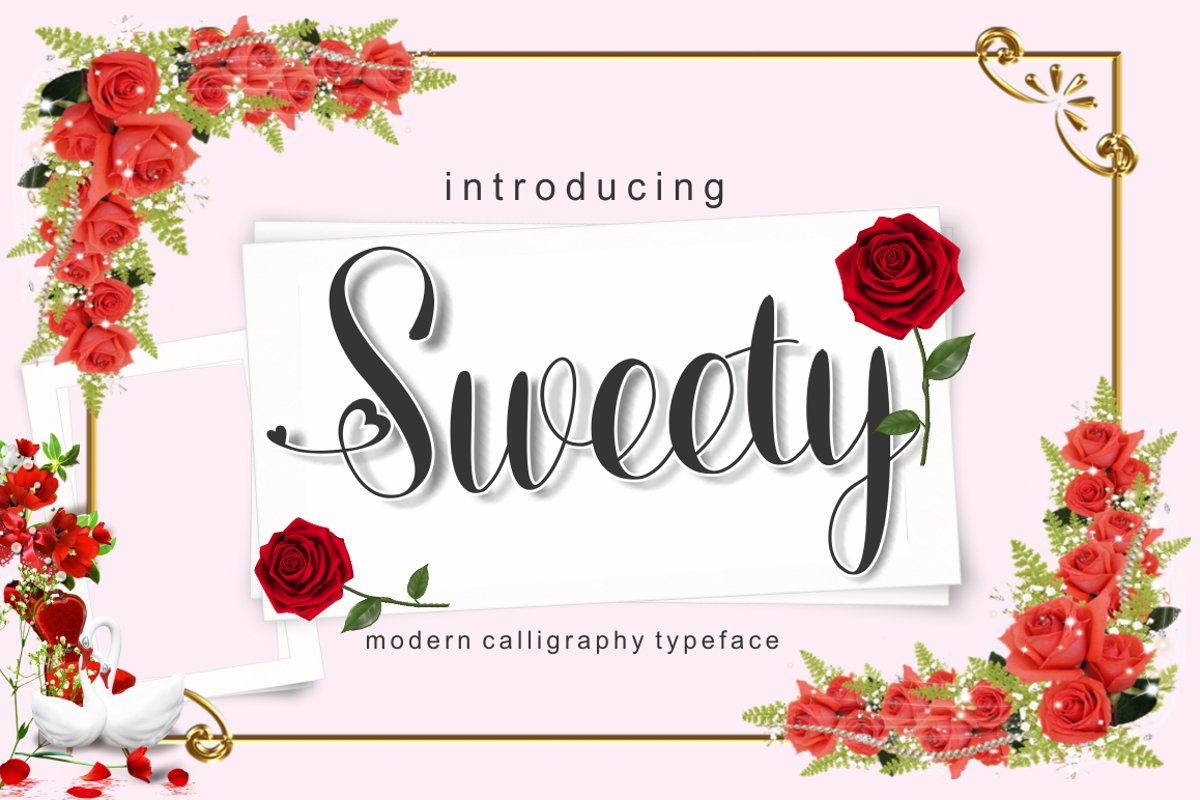
Sweety
Sweety is a unique and beautiful script font crafted very carefully. Sweety is perfect use for a logo for branding, typography design, christmas card, product packaging, invitation, quotes, t-shirt design, label poster, special events and anything that need handwriting taste.